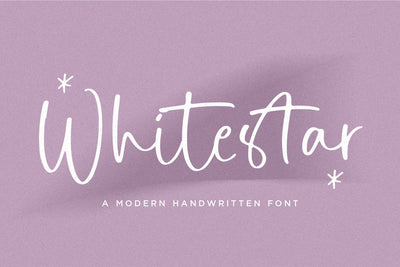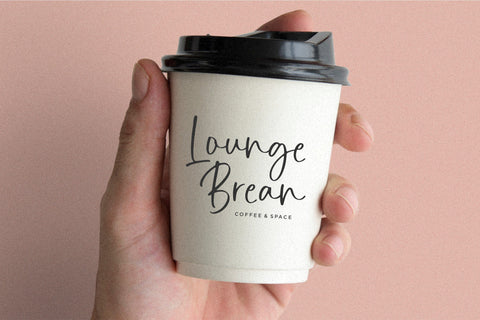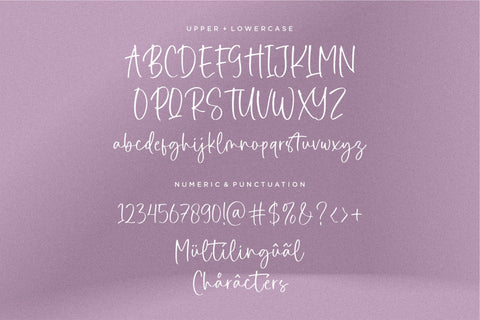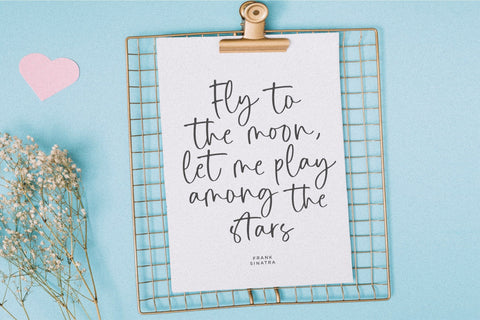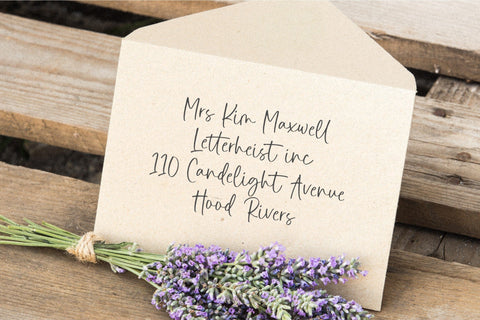
Whitastar Font
Whitastar is a Modern handwritten typeface that's perfect for adding a touch to your design projects! With its natural, organic feel and unique character.
Crafted with care and attention to detail, this font is incredibly versatile and can be used for a range of design projects, including logos, branding, invitations, and more. Its modern, handwritten style gives it a unique character that's sure to make an impact.